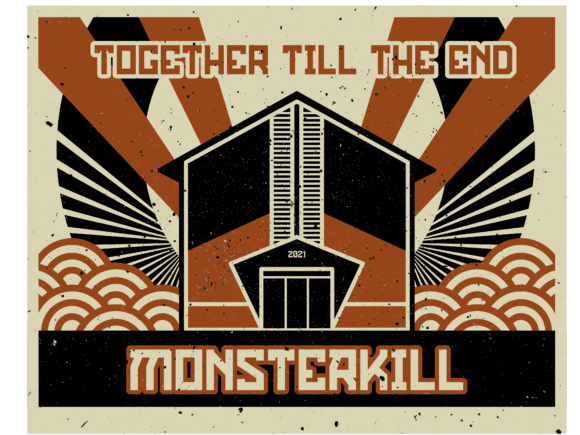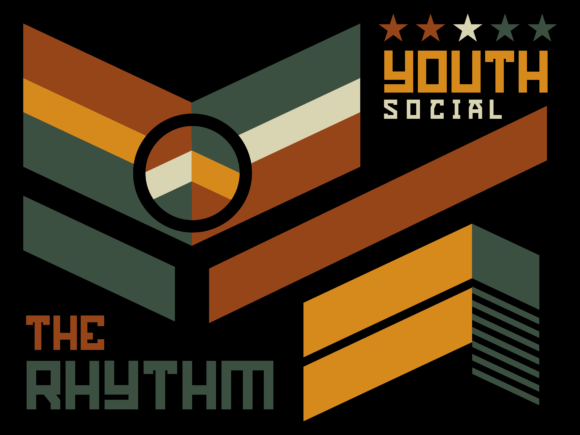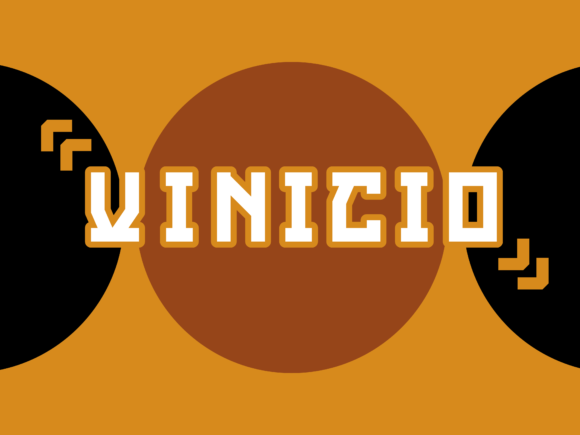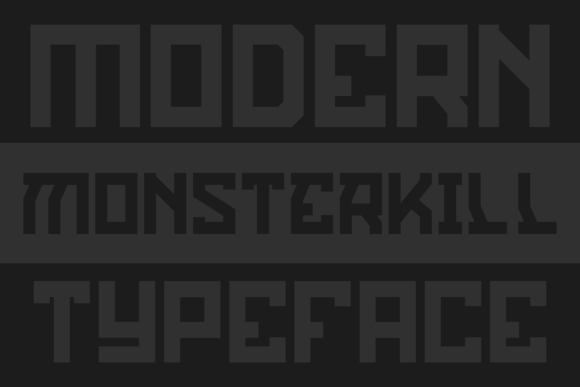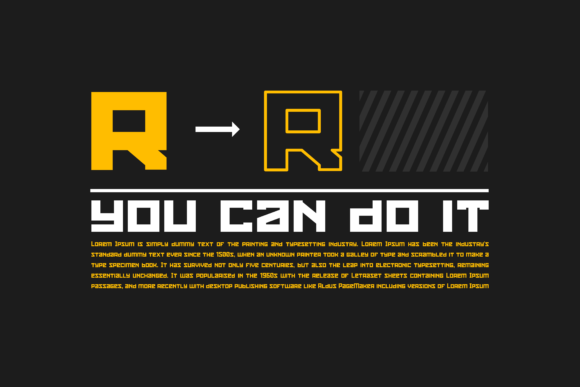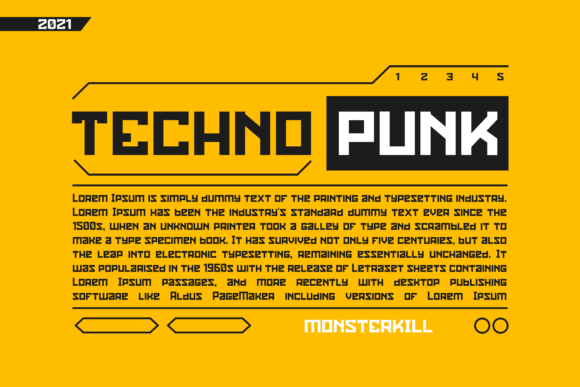
Introduction to Monsterkill Font
Monsterkill is a bold, robotic and thick lettered display font.
This font is ideal for writing web designs, business cards, or pretty much anything else that requires a unique touch .